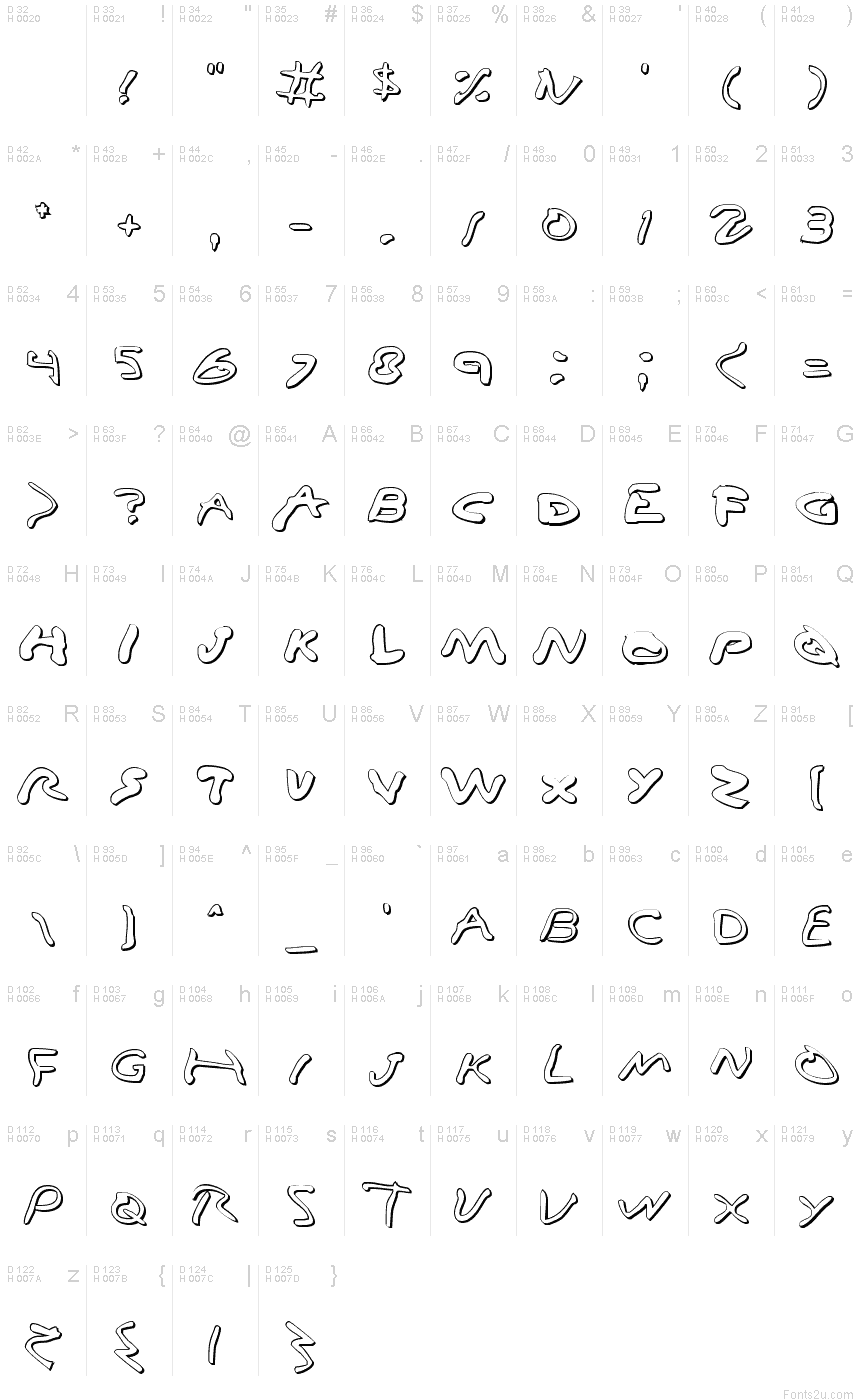
Vampire Games 3D
Vampire Games 3D by Iconian Fonts is a free horror-handwritten display font with the look of dripping rubber tubes bent into uneasy caps. The letters feel loose and creature-like, with swollen outlines, pinched joins, and a soft 3D echo that gives the strokes a pulpy, B-movie chill.
It fits poster titles, game logos, haunted attraction flyers, Halloween party graphics, and comic-book cover lines where a little campy menace helps. As a free font, it also works well for short title cards and monograms, because the puffy contour and irregular rhythm do most of the mood-setting on their own.